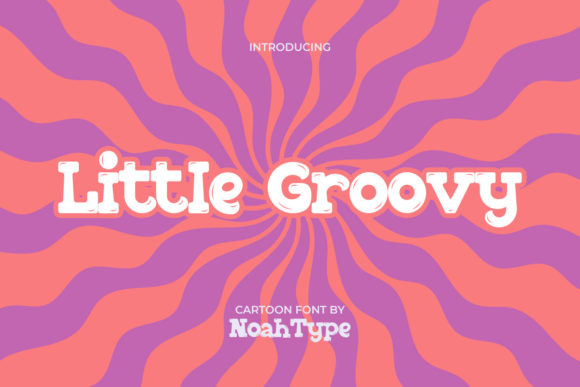
Introducing the Little Groovy Font, a captivating and lively display font that will instantly elevate your designs! Created by the talented NoahType, this font is perfect for adding a modern touch to your logos and grabbing the attention of your audience.
With its shinny cartoon style, the Little Groovy Font brings a playful and fun element to any project. It offers a unique and eye-catching appearance that will make your designs stand out from the crowd. Whether you're working on crafts, digital design, presentations, or greeting cards, this font is versatile and adaptable to any creative endeavor.
But what sets the Little Groovy Font apart is its exceptional readability. Each letter is carefully crafted to ensure clarity and effortless legibility. Say goodbye to frustratingly illegible fonts that hinder your message. With Little Groovy, your words will flow effortlessly, captivating your audience and delivering your message with impact.
Not only is Little Groovy readable, but it also exudes an air of intelligence and style. Its sleek and modern design will make your projects look professional and polished. This font is more than just a tool; it's a statement of sophistication and creativity.
Imagine the possibilities with Little Groovy as your go-to font. Whether you're designing a logo for a cutting-edge startup, creating stunning presentations for your clients, or crafting heartfelt greeting cards, this font will become your trusted companion. Its adaptability knows no bounds, making it suitable for every occasion.
Incorporating the Little Groovy Font into your designs will spark emotion and captivate your audience. Let the vibrant and energetic nature of this font breathe life into your creations. It's time to unleash your creativity and make a lasting impression.